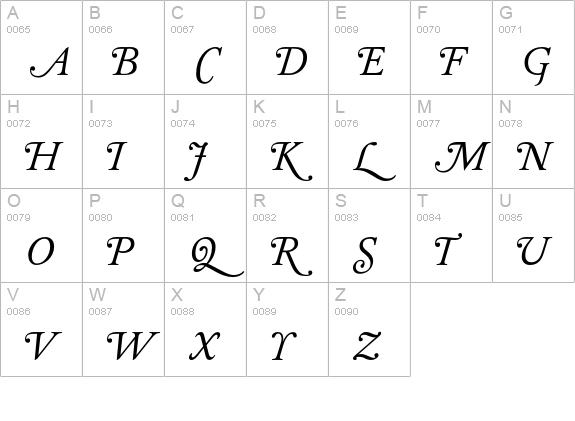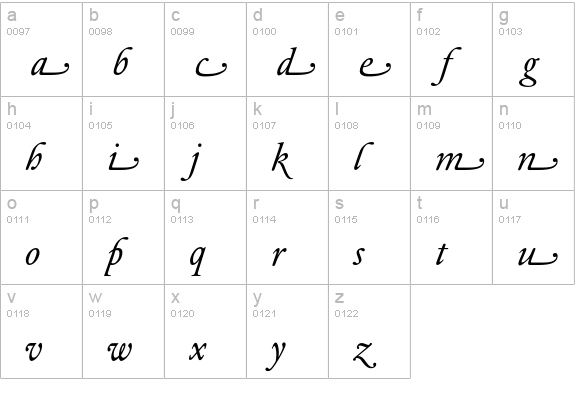
DTLElzevirTSwash-Italic is a distinctive, italic variant in the DTLElzevirTSwash typeface family \xE2\x80\x94 well suited to design and typography projects.
The DTLElzevirTSwash-Italic font exudes elegance and sophistication with its stylish swashes and italic design. This unique font is perfect for adding a touch of luxury to your projects, whether it's for invitations, branding, or editorial designs. What makes DTLElzevirTSwash-Italic even more appealing is that it is available for free download at FontsMarket.com. This means you can elevate your designs without any cost, making it a valuable asset for designers and creatives looking to make a statement. Don't miss out on this opportunity to enhance your projects with the DTLElzevirTSwash-Italic font, available for free at FontsMarket.com.